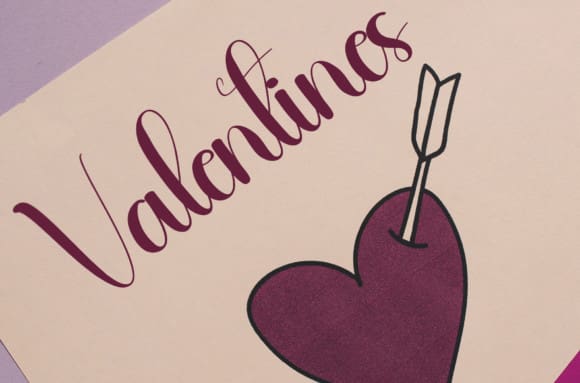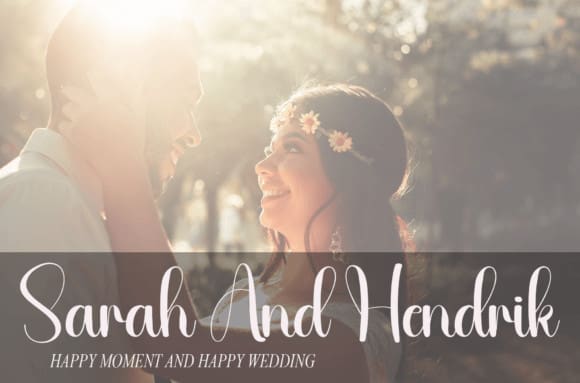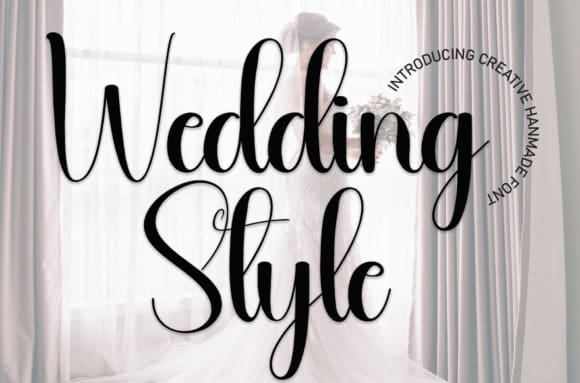
Wedding Style Font
Wedding Style Font is a sweet and friendly handwritten font. Fresh and neat, this font is ideal for writing wedding invitations, cards, or any other design that might need a fun touch!